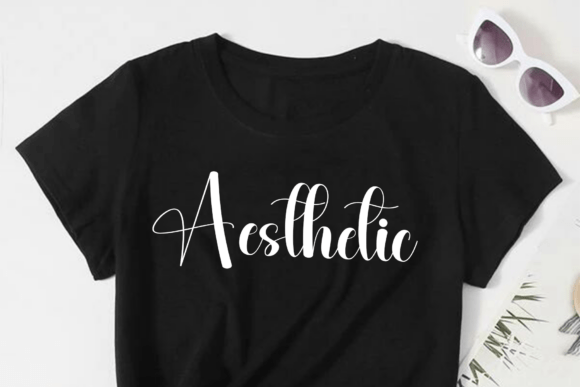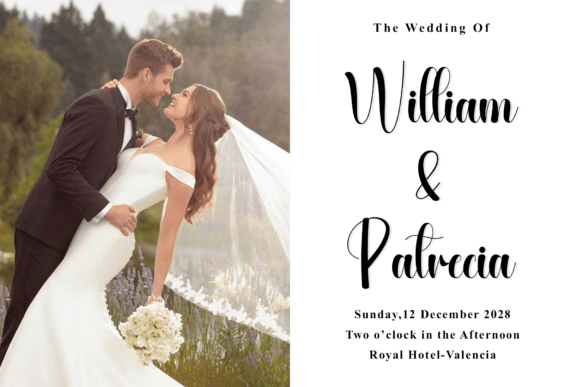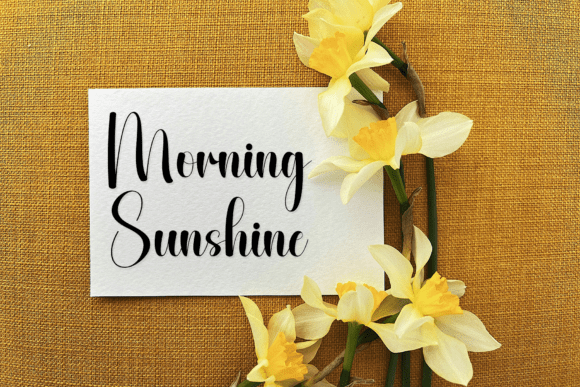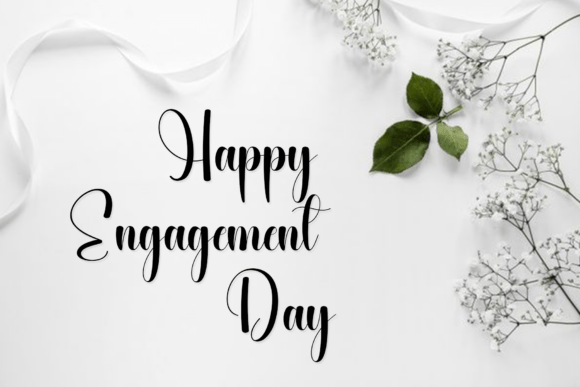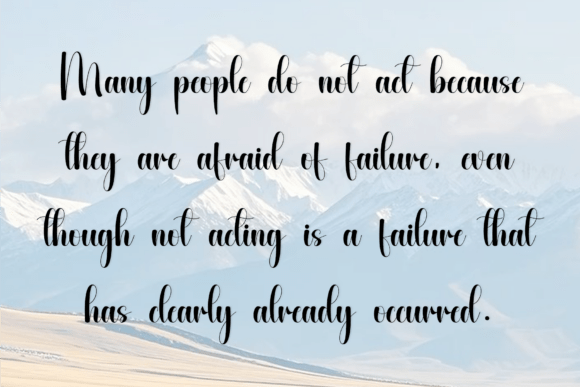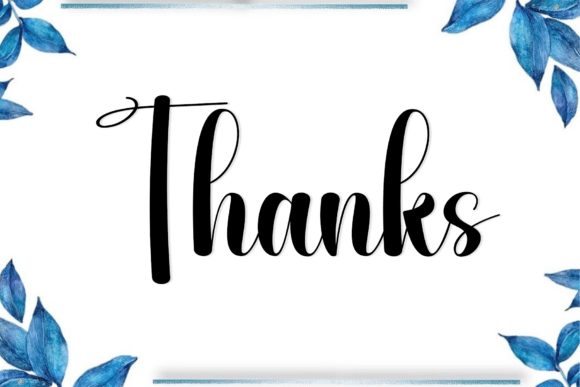
Introducing Background Font: Elevate Your Designs with Luxury and Elegance
In the world of typography, few fonts manage to convey the essence of luxury and sophistication as effortlessly as the Background font. This stunning, handwritten typeface is designed to bring an air of modern grace and elegance to your designs, making it an exceptional choice for discerning designers and crafters. Whether you’re working on boutique branding, high-fashion editorials, or sophisticated social media templates, Background font is the perfect tool to add a personal, human touch to your work.
The Characteristics of Background Font
Background font boasts a rhythmic, upright flow with smooth, clean strokes that mimic high-end felt-tip calligraphy. The subtle variations in line weight give the font an authentic, hand-inked feel that resonates with luxury audiences. This unique blend of elegance and personality makes Background font an excellent choice for a wide range of design applications. The font’s PUA-encoding allows for effortless access to all glyphs, swashes, and alternate characters, providing unparalleled flexibility and creative freedom.
Design Applications for Background Font
The versatility of Background font makes it suitable for various design projects that demand a touch of luxury and sophistication. Some of the ideal applications for this font include:
- Wedding Invitations: Add a touch of elegance to your wedding stationery with Background font. Its smooth, flowing strokes and subtle variations in line weight create a romantic and sophisticated ambiance.
- Beauty Product Packaging: Elevate your beauty brand with Background font. Its luxurious feel and high-end aesthetic make it perfect for product labels, packaging, and marketing materials.
- Lifestyle Blog Headers: Give your lifestyle blog a sophisticated makeover with Background font. Its elegant and modern design ensures that your blog stands out from the crowd and exudes a sense of refinement.
- Boutique Branding: Background font is an excellent choice for boutique branding, providing a unique and luxurious feel that sets your brand apart.
- High-Fashion Editorial Layouts: Use Background font to add a touch of sophistication to your high-fashion editorial layouts, creating a visually stunning and engaging reading experience.
- Sophisticated Social Media Templates: Elevate your social media presence with Background font. Its elegant design and luxurious feel make it perfect for creating sophisticated social media templates.
Design Tips and Pairing Suggestions
To get the most out of Background font, consider pairing it with soft, botanical illustrations or minimalist layouts. This combination creates a high-end visual experience that is both timeless and contemporary. The key to successfully pairing Background font with other design elements is to maintain a balance between elegance and simplicity. Avoid over-accessorizing your design, and let the font’s luxurious feel take center stage.
The Benefits of Using Background Font
Background font offers several benefits that make it an attractive choice for designers and crafters. Some of the advantages of using this font include:
- Unique and Luxurious Feel: Background font provides a unique and luxurious feel that sets your designs apart from the crowd.
- High-End Aesthetic: The font’s high-end aesthetic makes it perfect for design applications that demand a touch of sophistication and elegance.
- Effortless Access to Glyphs and Swashes: Background font is PUA-encoded, allowing for effortless access to all glyphs, swashes, and alternate characters.
- Versatility: Background font is suitable for a wide range of design applications, making it a valuable addition to any designer’s font library.
In conclusion, Background font is a stunning, handwritten typeface that exudes an air of effortless elegance and modern grace. Its unique blend of luxury and personality makes it an exceptional choice for designers and crafters looking to elevate their designs. With its PUA-encoding, subtle variations in line weight, and high-end aesthetic, Background font is the perfect tool to add a personal, human touch to your work. Whether you’re working on boutique branding, high-fashion editorials, or sophisticated social media templates, Background font is sure to impress.